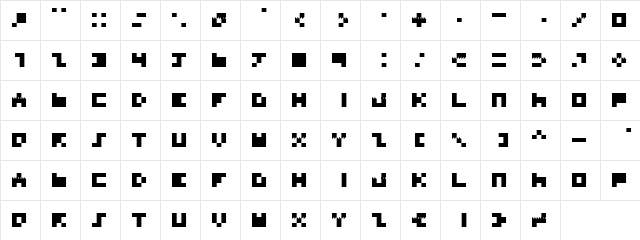
BD TINYFONT Regular
| Foundry | Bataais |
| Designer | Bataais |
Design Context for BD TINYFONT Typeface
BD TINYFONT is a composed and adaptable typeface that performs quietly and consistently across a wide range of design contexts. Its bold stroke weight gives it real presence on the page.